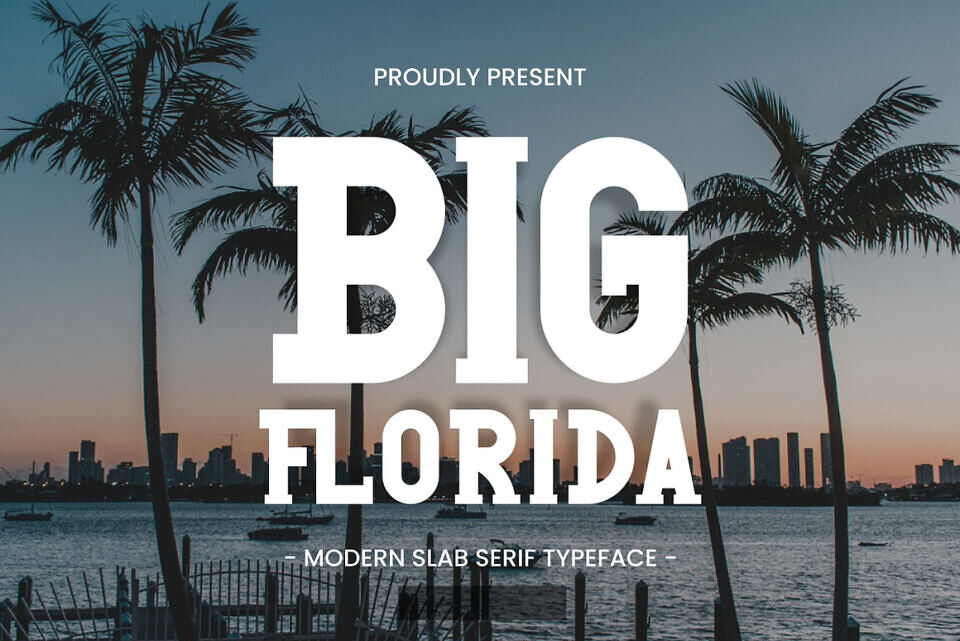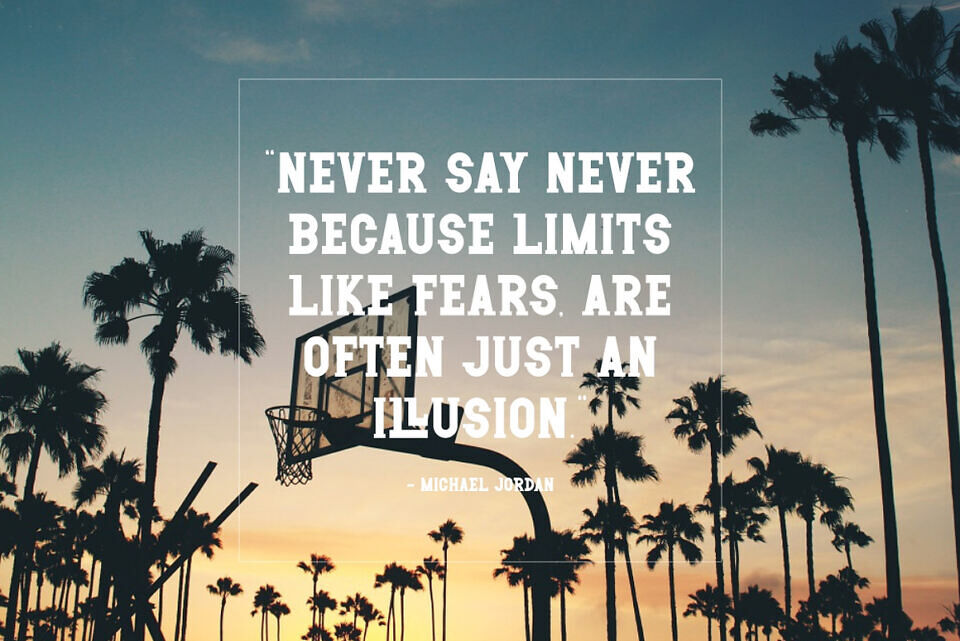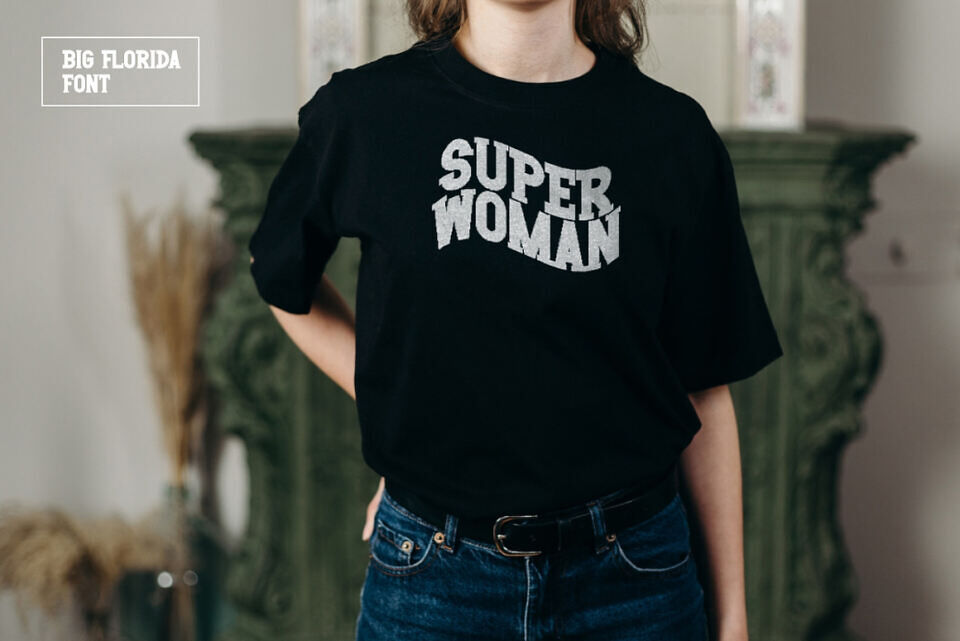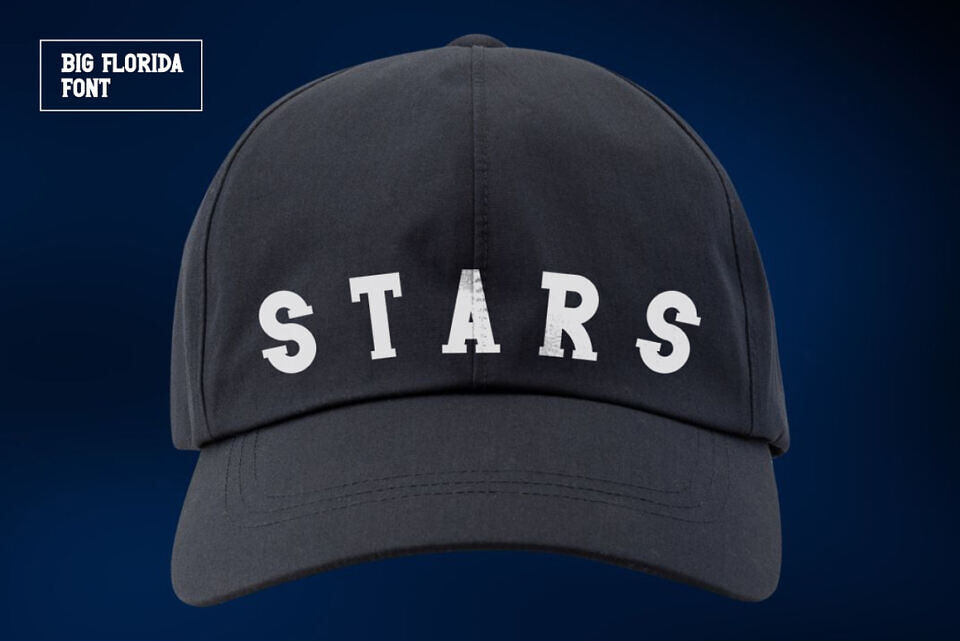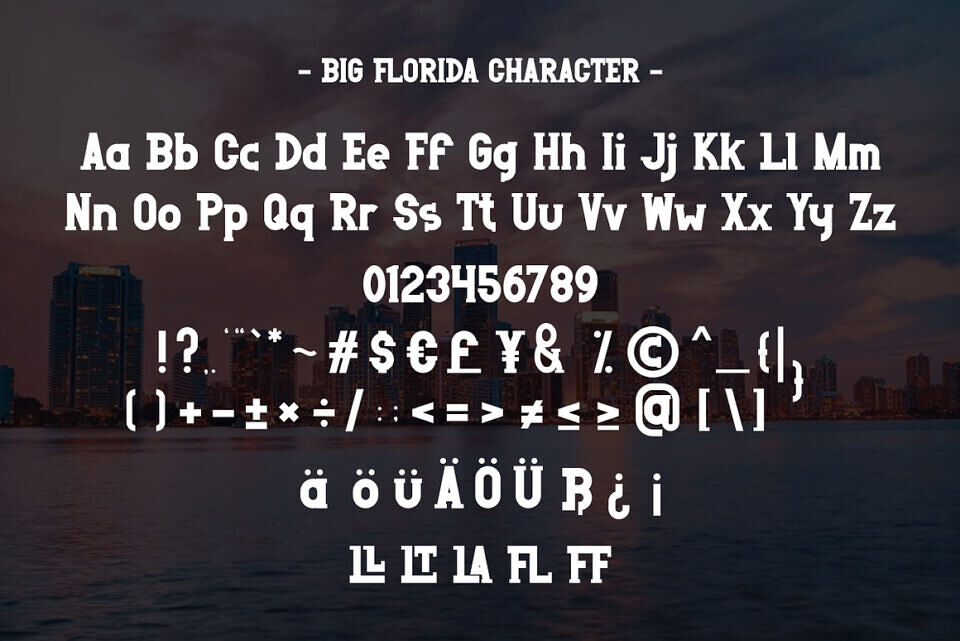
Big Florida Font
Introducing Big Florida, a modern Slab serif category font with a bold style, which is cool for various creative projects such as labels, t-shirts, sports products, logos, typography, logotype, business, branding, book covers, magazines and many other creative ideas.
Designed by: Masyafi Studio